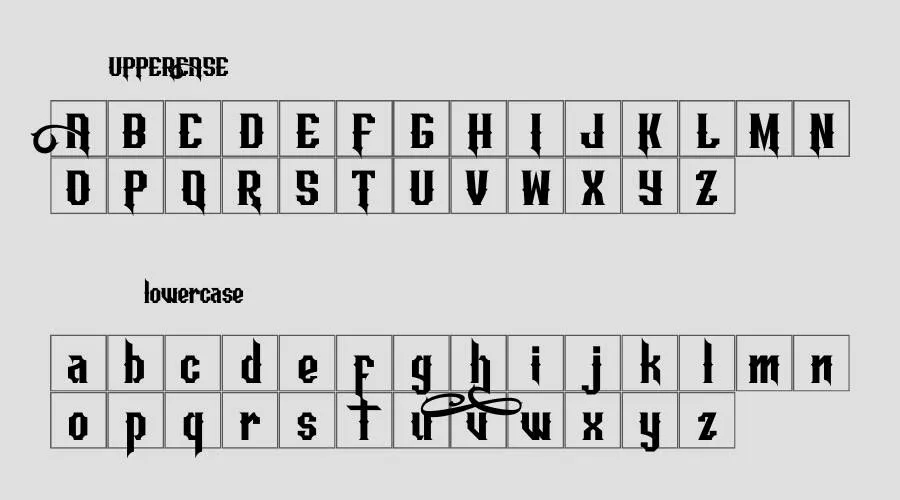
Aesthetic Font
About Aesthetic Font
Aesthetic Font is a nice fancy style the font is beautifully designed and has an attractive appearance it also displays flexibly formed letters due to their strong curves.
If you are looking for a font with lots of traits, this lettering style will be a flawless choice. To make a design that is both exclusive and attention-grabbing, you can pair this font with any other typeface like star wars font.
Adobe Photoshop and Canva are two popular designing software packages that allow you to utilize this font for movie logos, drama logos, and logos for websites. This stunning font is often used by graphic designers for generating alternate brush designs.
This typeface is frequently used for invitations, website headers, and regular text that requires a little individuality. Any project can have an imaginative turn by using the style.
The typeface’s popularity is increased by the number of creators who utilize it. This typeface can be used for a variety of projects, including book covers, graphics cards, and artwork. This font style is also good for making a pair with bubble gum font.
You can create advertisements and social media postings using this typeface. This typeface can be utilized for a wide range of international design projects, such as paintings and gaming graphics.
The lovely typography is perfect for creating cards and mugs. This collection has a wide range of uses, including blog, theme, and catalog design.
What is the type of Aesthetic Font?
Aesthetic is a contemporary fancy font. It highlights unique textual styles. This family highlighted numerous ligatures and substitutions.
Where can I use the Aesthetic Font?
This typeface can be used for a variety of projects, including book covers, graphics cards, and artwork. The font is beautifully designed and has an attractive appearance.